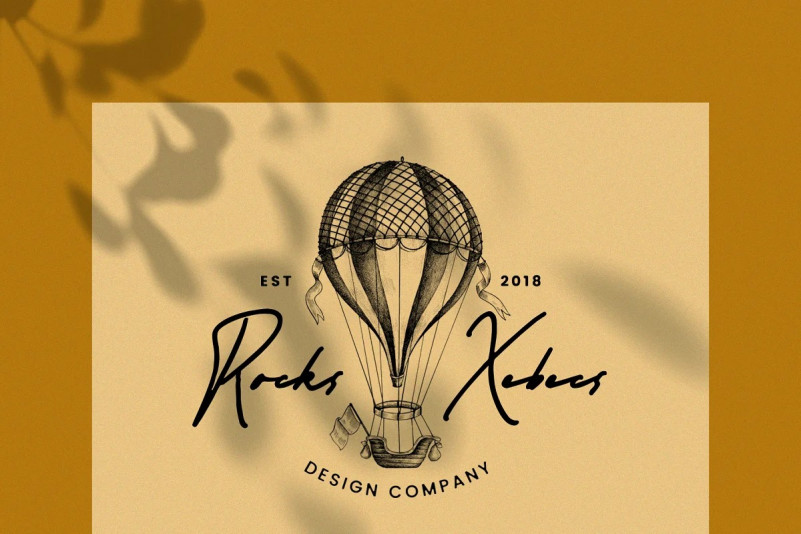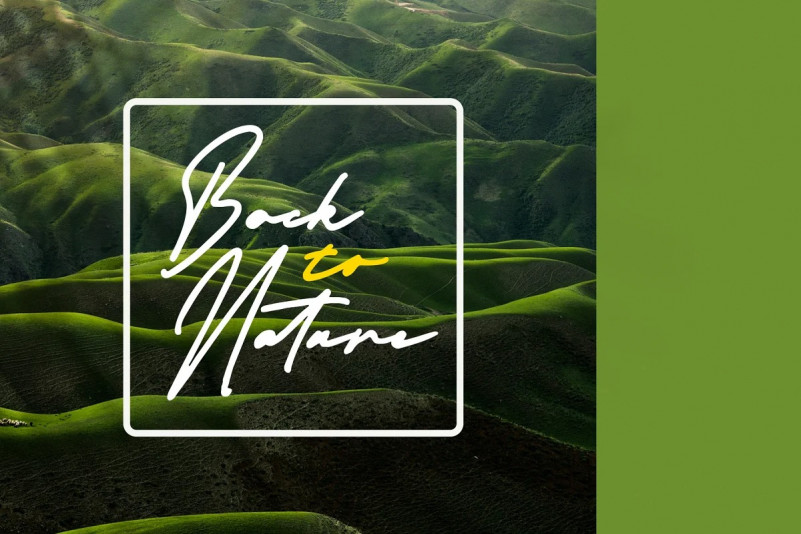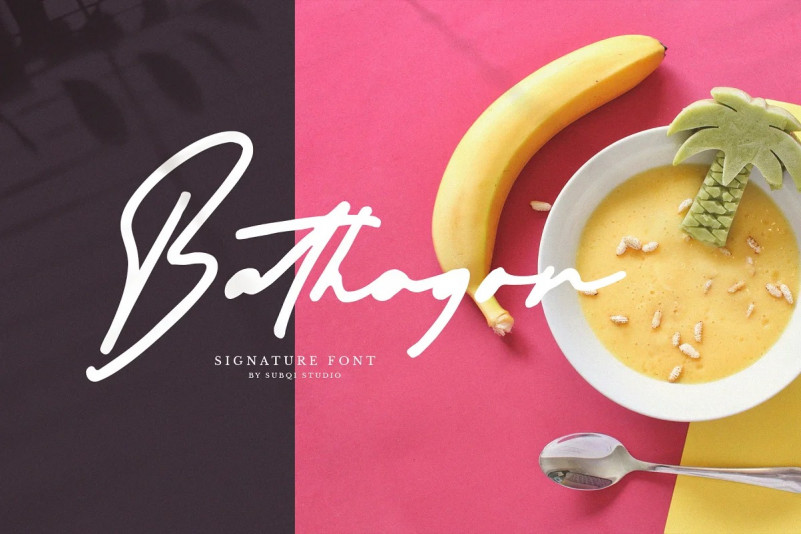
Bathagor Font
Introducing Bathagor Script Font, an elegant signature font that will fill your needs. Will very suitable for your projects susch as : tagline, logo, brand, quotes, etc.